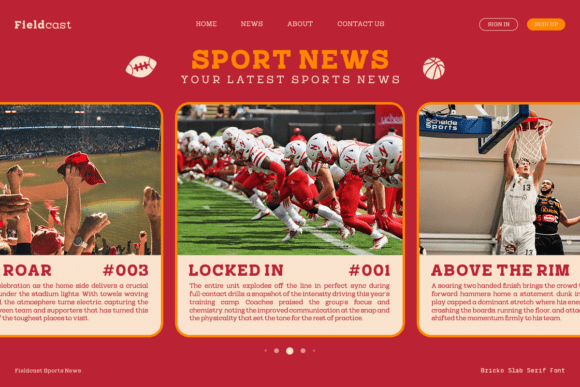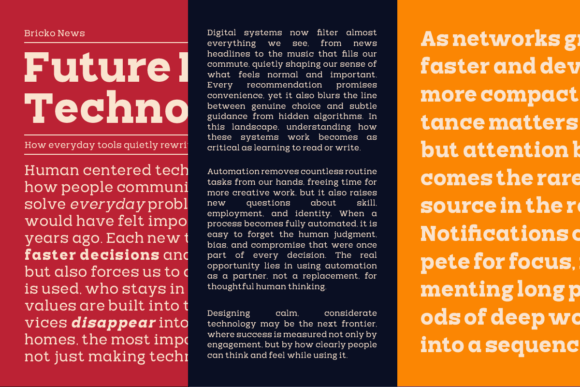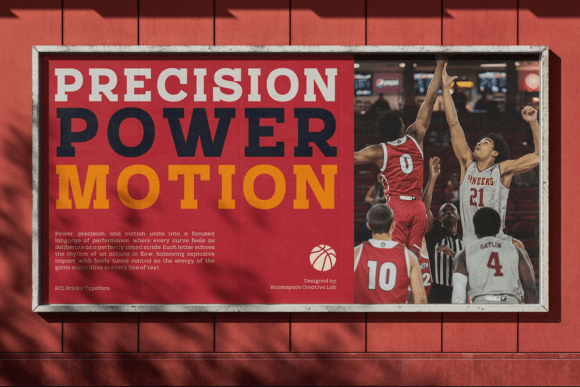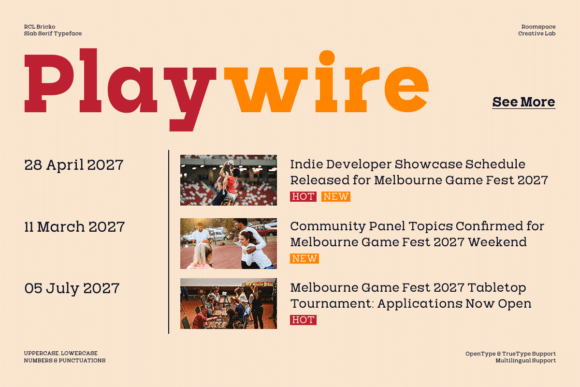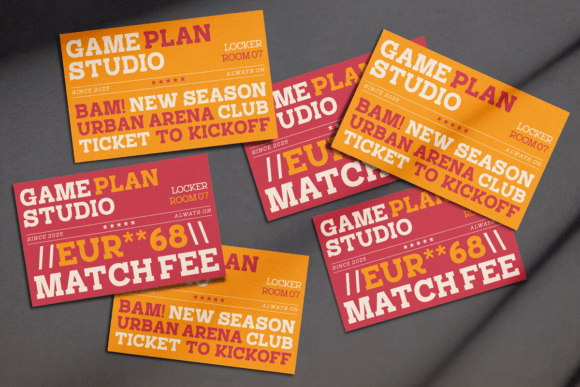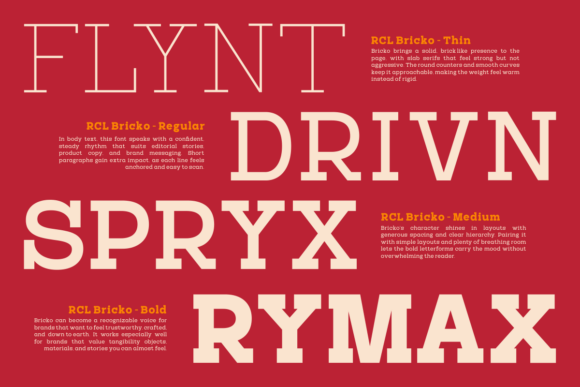
Bricko Font: The Ultimate Modern Slab Serif for Designers and Creators
In the world of typography, a font can make or break a design. For designers and creators looking for strong, readable typography, Bricko font is the perfect solution. This modern slab serif font family is designed to provide a professional look that is suitable for a wide range of projects, from branding and headlines to logos and editorial layouts.
What is Bricko Font?
Bricko is a carefully crafted font family that features solid letterforms and balanced proportions. Its modern slab serif design makes it perfect for designers who want to create a lasting impression. The font is optimized for both print and digital projects, ensuring that it looks great on any medium, from websites and social media graphics to packaging and marketing materials.
Key Features of Bricko Font
- Modern Slab Serif Design: Bricko’s slab serif design gives it a modern and edgy look that is perfect for designers who want to create a bold statement.
- Strong and Readable: The font features solid letterforms and balanced proportions, making it easy to read and understand.
- Professional Look: Bricko’s professional look makes it suitable for a wide range of projects, from branding and logos to editorial layouts and business designs.
- Versatile: The font is optimized for both print and digital projects, making it a versatile choice for designers.
Use Cases for Bricko Font
Bricko font is perfect for a wide range of design projects, including:
- Logos: Create a lasting impression with a bold and modern logo that uses Bricko font.
- Branding Kits: Develop a consistent brand identity with Bricko font, perfect for business cards, letterheads, and more.
- Websites: Use Bricko font to create a professional-looking website that stands out from the crowd.
- Packaging: Make your product stand out on store shelves with Bricko font on your packaging.
- Posters: Create eye-catching posters that grab attention with Bricko font.
- Social Media Graphics: Use Bricko font to create professional-looking social media graphics that engage your audience.
- Editorial Layouts: Use Bricko font to create readable and engaging editorial layouts for magazines, newspapers, and more.
- Business Designs: Create professional-looking business designs, such as brochures, flyers, and more, with Bricko font.
Why Choose Bricko Font?
With so many fonts available, why choose Bricko font? Here are just a few reasons:
- Unique Design: Bricko font has a unique and modern design that sets it apart from other fonts.
- High Readability: The font is designed to be highly readable, making it perfect for body text and headlines.
- Flexibility: Bricko font is optimized for both print and digital projects, making it a versatile choice for designers.
In conclusion, Bricko font is the perfect choice for designers and creators looking for strong, readable typography. Its modern slab serif design, solid letterforms, and balanced proportions make it perfect for a wide range of projects, from branding and headlines to logos and editorial layouts. With its professional look and versatility, Bricko font is sure to become a staple in your design toolkit.